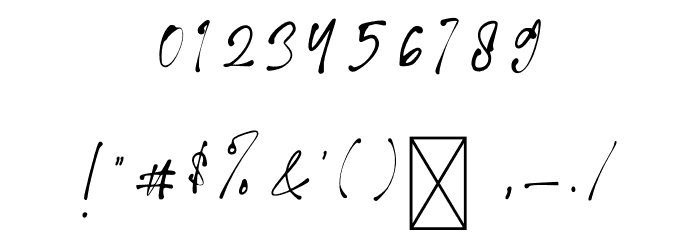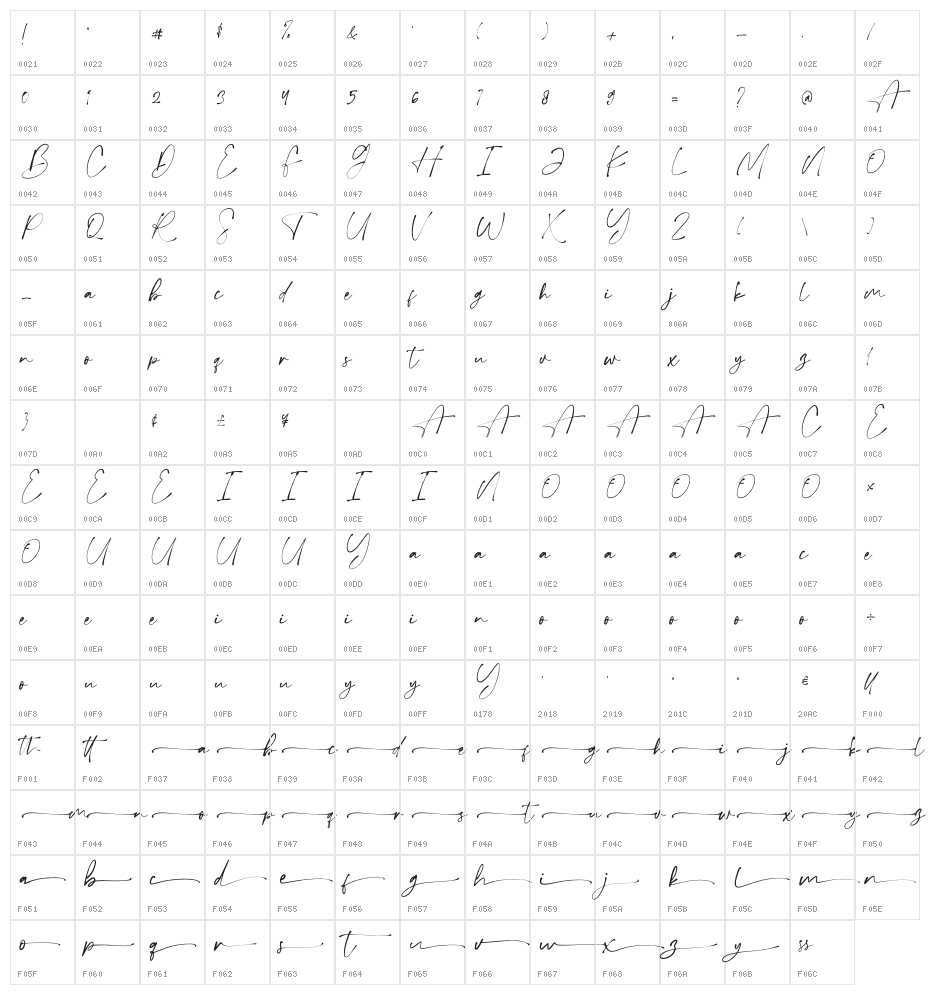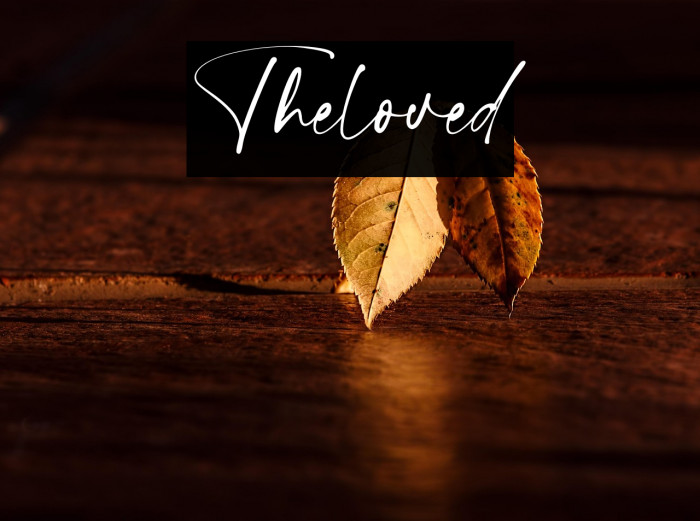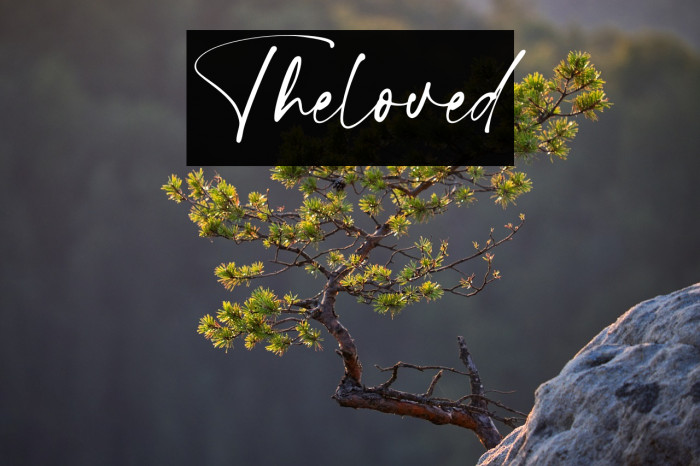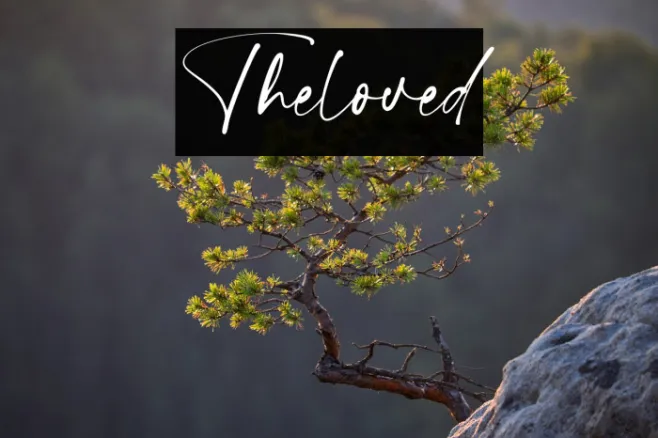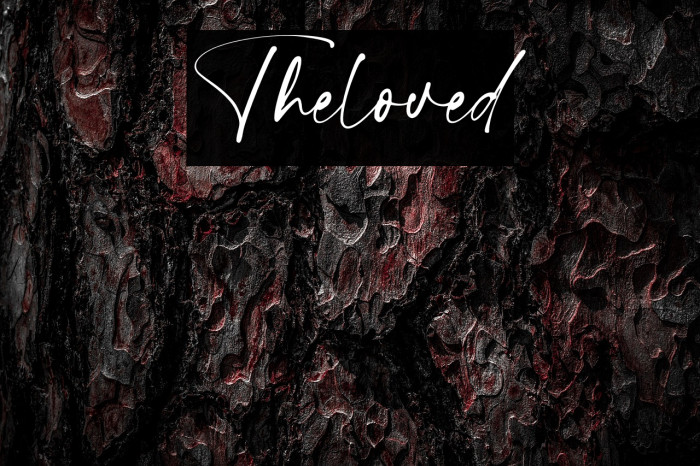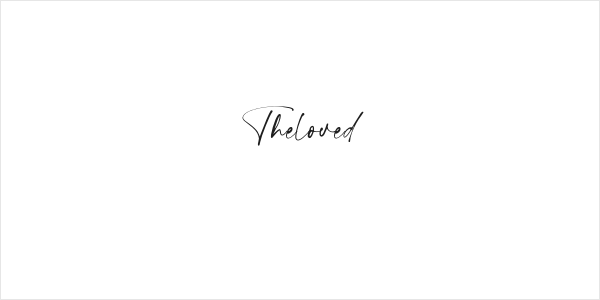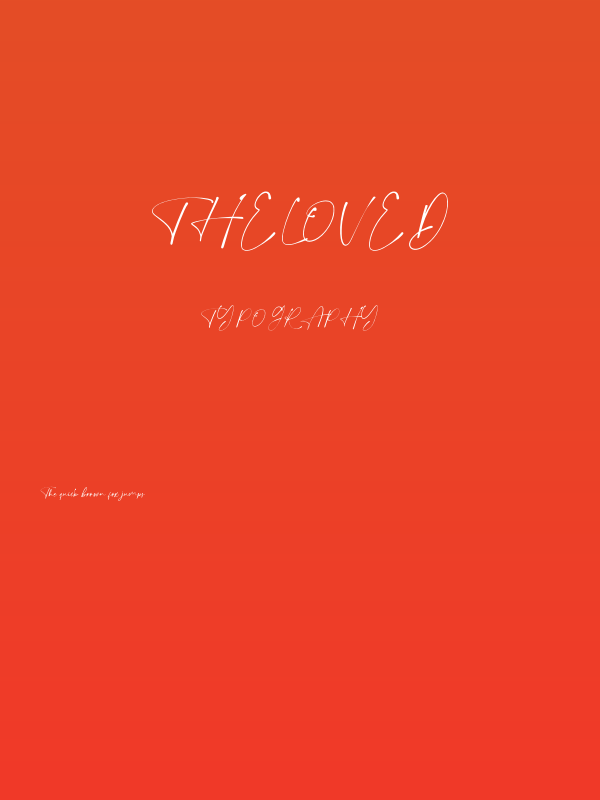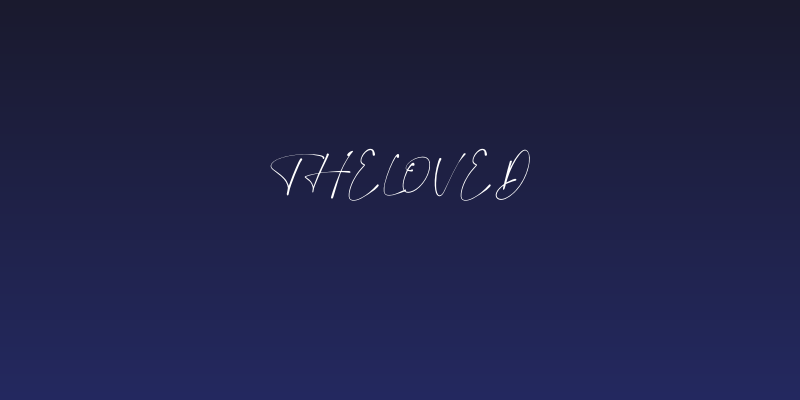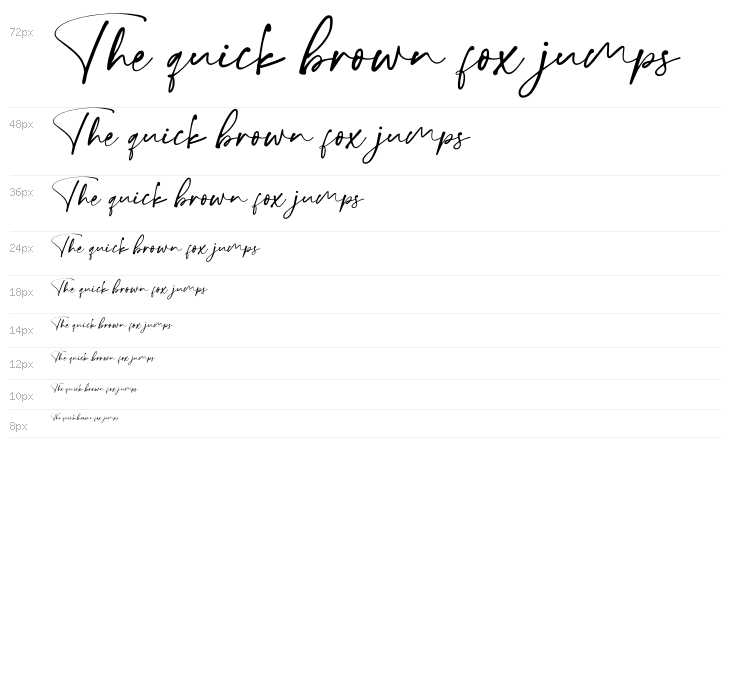
Theloved Font
Theloved Description
This font features an elegant and flowing script style, characterized by its cursive, handwritten appearance. The uppercase letters are tall and slender, with graceful loops and swashes that add a touch of sophistication. The lowercase letters maintain a consistent flow, with smooth connections between characters, enhancing its handwritten charm. The numerals are clear and legible, complementing the overall aesthetic. Special characters are thoughtfully designed, maintaining the font's cohesive style. This font exudes a sense of elegance and personal touch, making it ideal for projects that require a handwritten or artistic flair.
| Proposed Projects | Ideal for wedding invitations, greeting cards, personal branding, and artistic projects. |